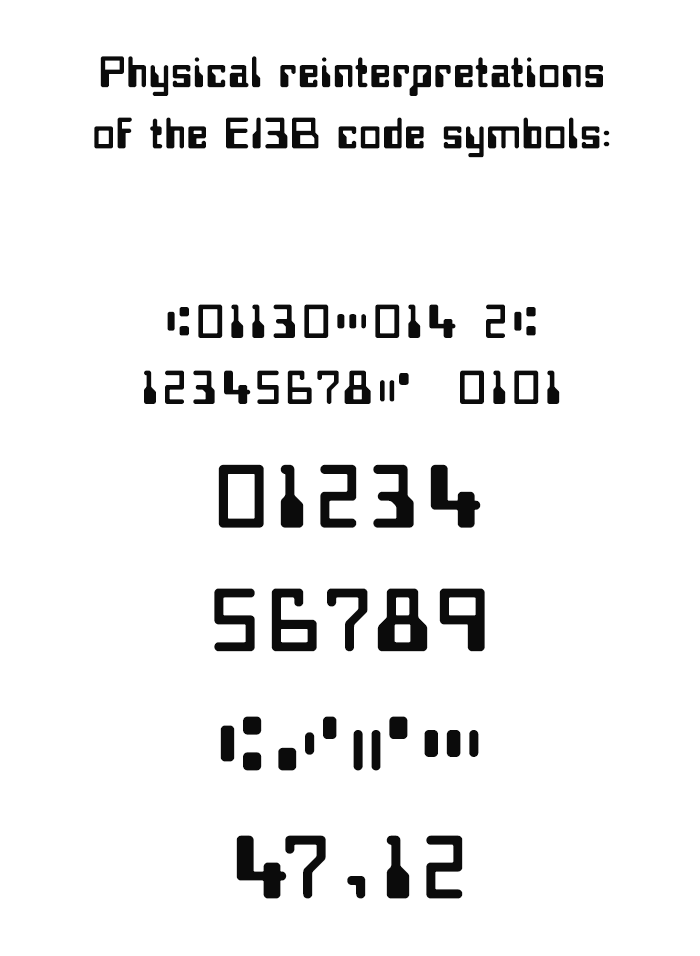
• Westmobster NRC — Magnetic Ink Character Recognition style
A typeface design inspired by the MICR aesthetics style.
I haven't checked and compared this against any of the others already in existence, but due to this it's obvious that this is going to share several resemblances with other similar fonts that are out there.
But I'm pretty confident that this isn't just your next Westminster or Data70.
Just to point out one of the unmistakable difference here for example, is the more distinct Sci-Fi characteristic, which is especially strong within it's uppercase set.
This sort of fonts have been strongly associated with computers technology, especially in the late 1960s and early-to-mid 1970s. Nowdays these lettering concepts are frequently used to indicate computer involvement in television series, films, books, music fashion and several other media.
In the 1960s, the MICR fonts became a symbol of modernity or futurism, leading to the creation of look-a-like "computer" typefaces that imitated the appearance of the MICR fonts.
It still requires some minor adjustment and tweaks, but the global concept is finished.
It might look simplistic at first, but its certainly not the case, just zoom in and take a closed look at the glyphs and for example all the softened round features.
Now imagine all that custom smoothing without 2x2 filter settings.
Yup... no filters used.
I wonder how you managed to pull off the curves from horizontal/vertical to a 45 degree angle at 1x1 filters?
Could also add the OCR and MICR characters from the Optical Character Recognition block as many OCR systems—including MICR systems—make use of said characters…
@Sed4tives - Wonderful version you have created here.  Westminster & Data 70 are two of my favorites.  :^)
@Bryndan W. Meyerholt (BWM) - If you zoom in on the outer left shoulder of the A at the midpoint, you can see a little of what tricks @Sed4tives may have employed.  ;^)
Nice work, very impressive curves!
@BWM: Optical Character Recognition block included!
cool, it looks like westminster.
It also contains an additional set of numeral figures that more closely mimic the original MICR numerals.